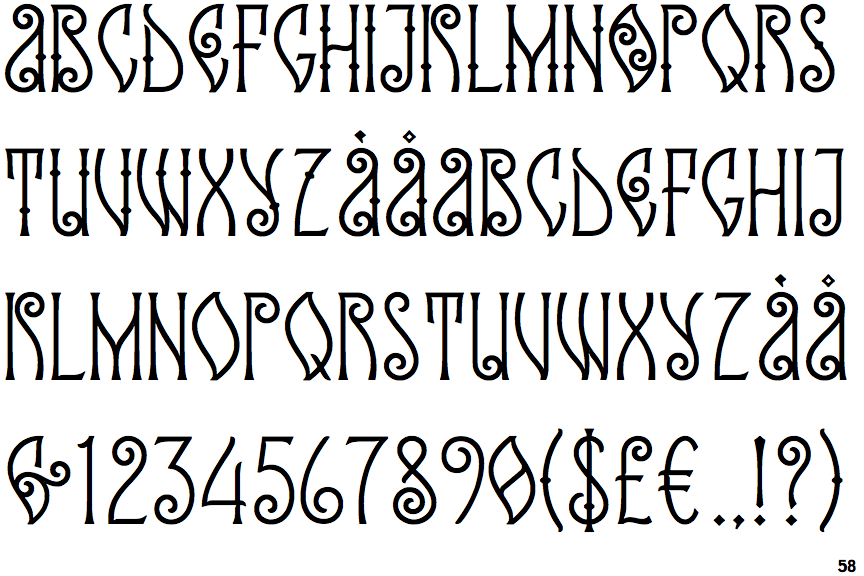
Gaytan Serif
Inspired by Old Church Slavonic Cyrillic, Bulgarian Ustav, and the Russian Vyaz styles, as well as the avant-garde works of Bulgarian type designers in late 1970s.
Designer: Vassil Kateliev Year: 2012 Publisher: Karandash |